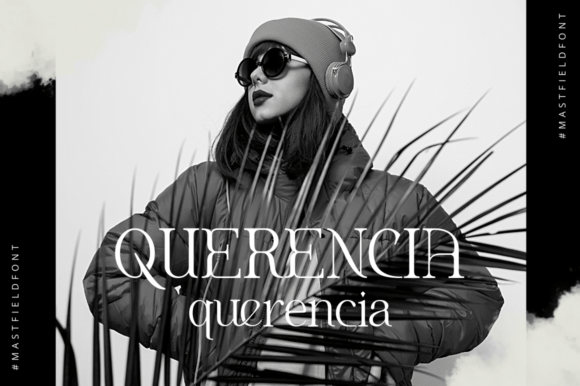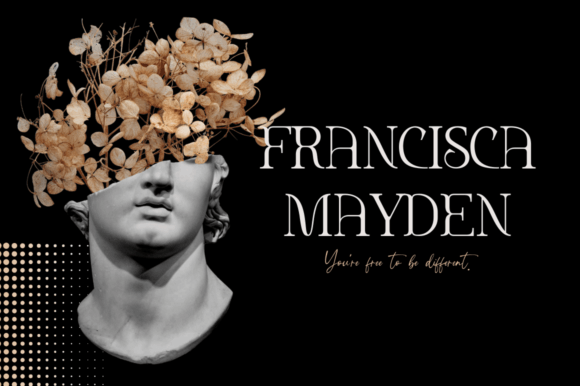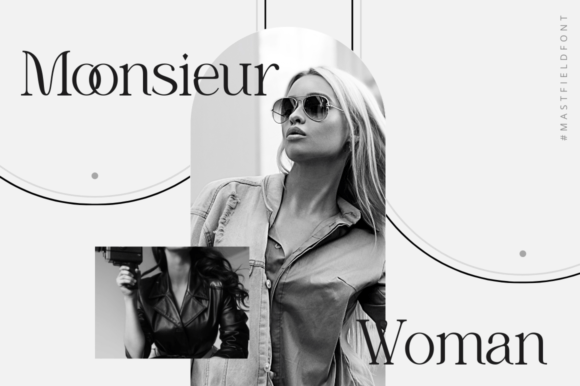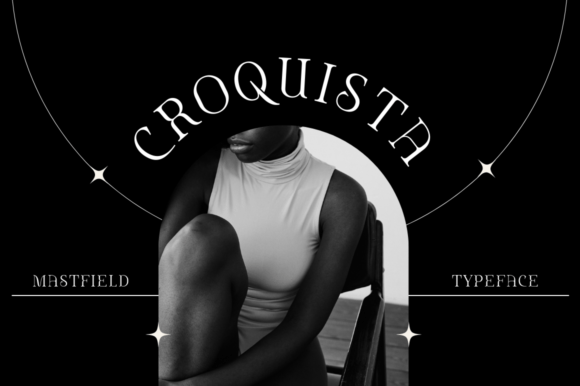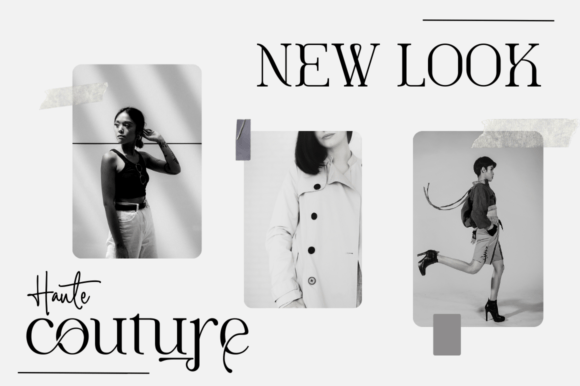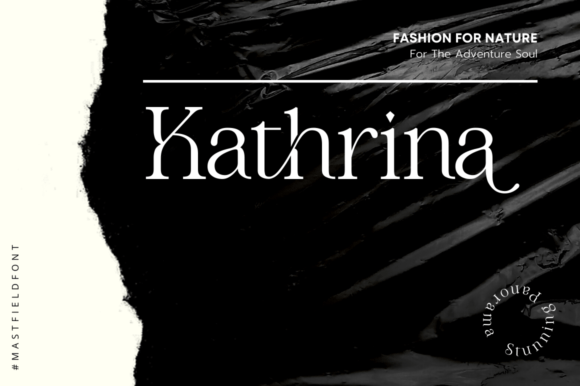
Introduction to Mastfield Font
Mastfield is a beautiful and refined serif font.
It has a classy, elegant, and modern look that can be used for logos, branding, invitations, stationery, wedding designs, social media posts, and much more This font is PUA encoded which means you can access all of the amazing glyphs and ligatures with ease.